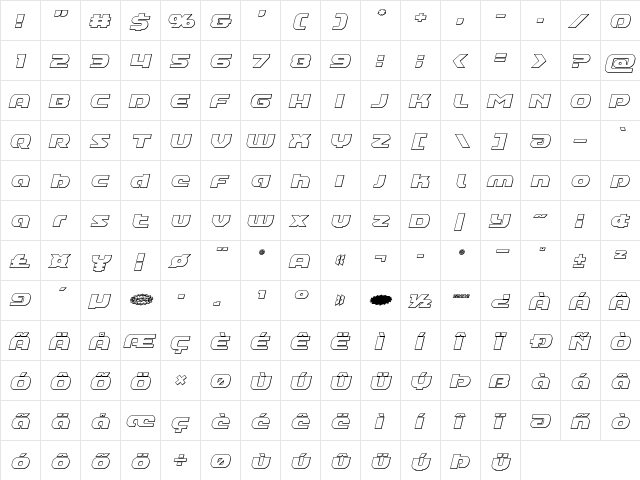
Design Context for Annapolis Lower Case Outline Italic Typeface
Annapolis Lower Case Outline Italic brings ornamental detail and strong personality to headlines and identities, where visual impact matters more than quiet functionality. Its italic angle brings a sense of urgency and motion to the letterforms.
Font Pairing: Pair with a clean neutral sans-serif for body copy to let Annapolis Lower Case Outline Italic's character lead without overwhelming the composition.
Pro Tip: Treat Annapolis Lower Case Outline Italic as the centrepiece of your typographic hierarchy. One strong heading set in a decorative face can carry an entire layout.